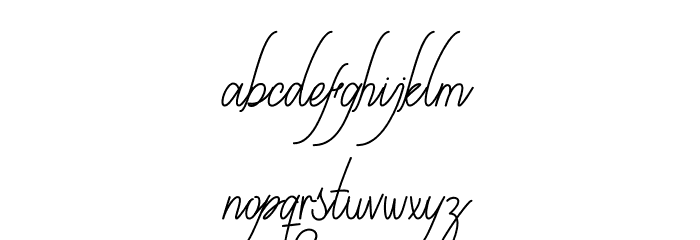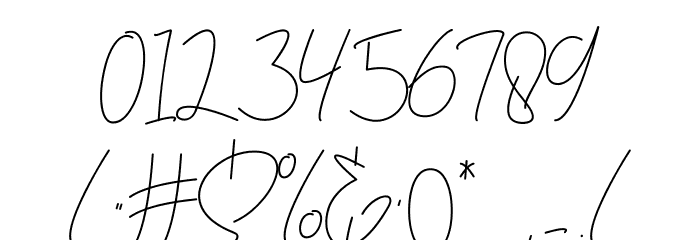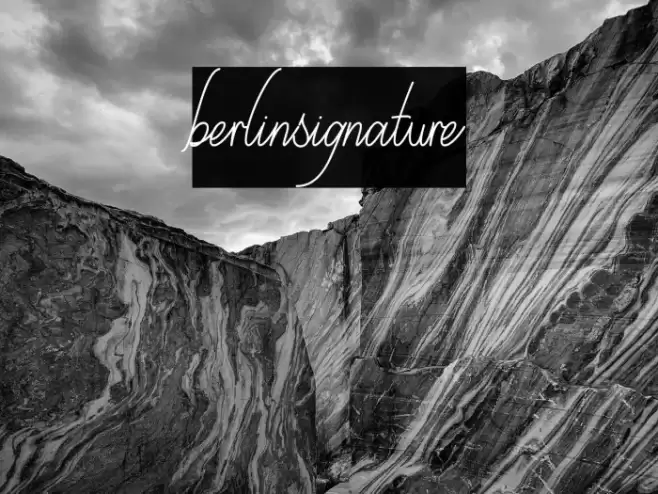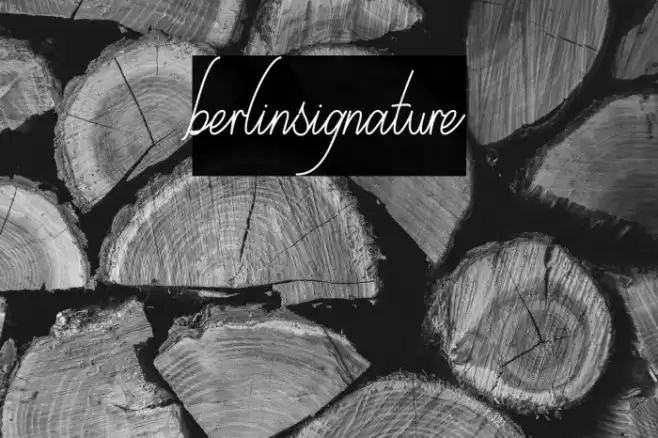
berlinsignature Font
This elegant script font exudes a sense of sophistication and fluidity, characterized by its flowing, cursive strokes that mimic the natural motion of handwriting. The uppercase letters are tall and graceful, with sweeping lines that create a sense of movement and dynamism. The lowercase letters are equally refined, maintaining a consistent slant and smooth curves that enhance readability while preserving the font's artistic flair. The numerals and special characters are designed with the same attention to detail, ensuring a cohesive appearance across all elements. This font is ideal for projects that require a personal touch, such as invitations, branding, and decorative text.
A sophisticated script font with elegant, flowing cursive strokes.
- Font: berlinsignature
- Proposed Projects: Ideal for wedding invitations, personal branding, greeting cards, and decorative headings.
- Category: Script
- Overall Style: Elegant, Decorative
- Use Case: Headlines, Logos, Invitations